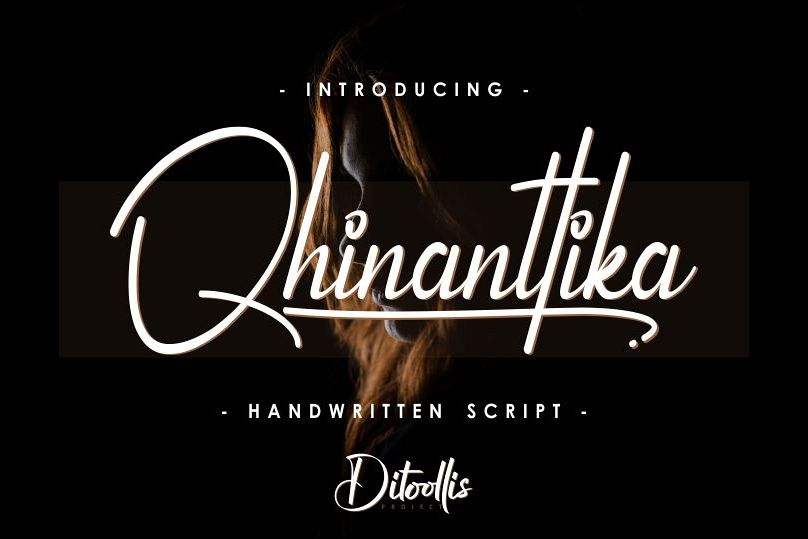
Qhinanttika
I will introduce my newest product "Qhinanttika"
This font is very modern, and is very suitable for your design ...
This font is suitable for business cards, logos, covers, comics, invitations, etc.